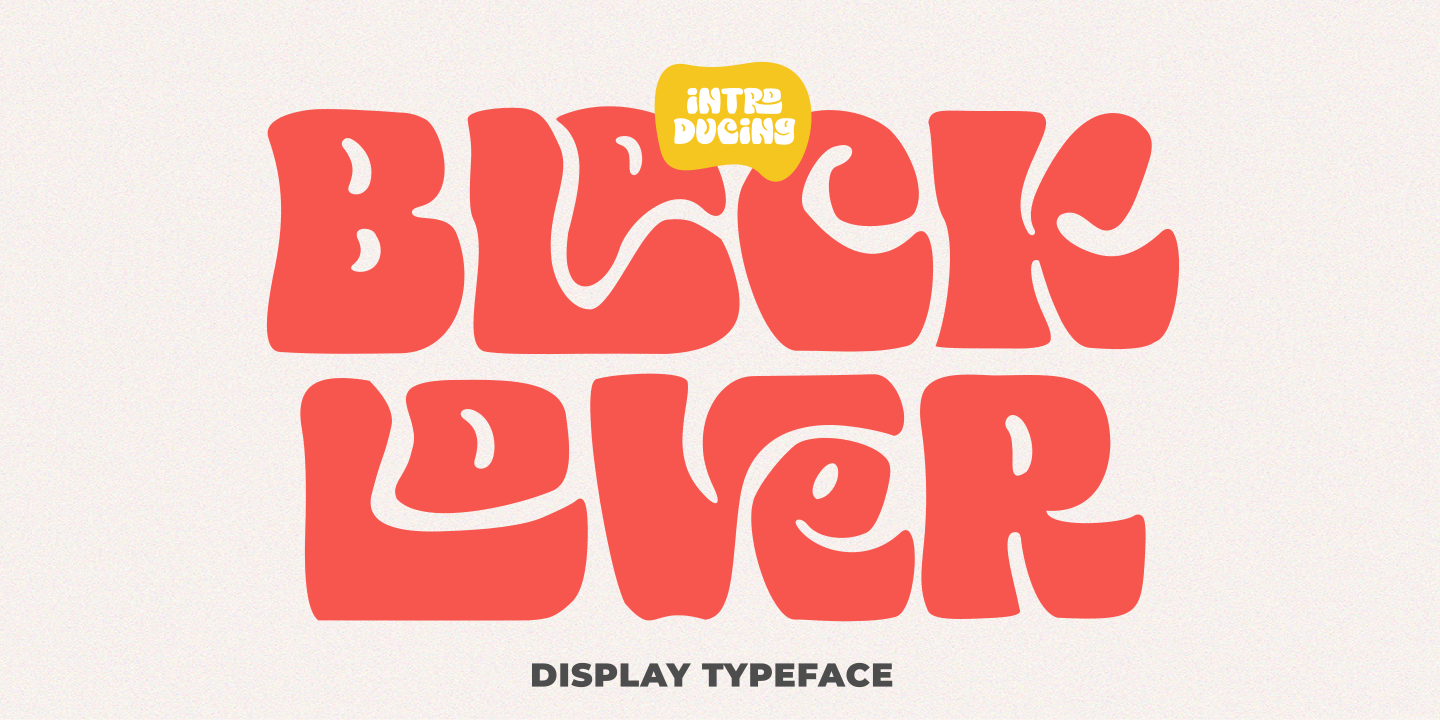
Black Lover Font is perfect for luxury brand logos, high-end fashion magazines, premium product packaging, sophisticated wedding invitations, elegant business cards, upscale restaurant menus, jewelry advertisements, and exclusive event branding. This refined typeface excels in luxury market applications, premium brand identity projects, and any design requiring bold sophistication and timeless elegance.
What makes Black Lover Font exciting is its striking balance of boldness and refinement that commands attention while maintaining sophisticated elegance. The font features dramatically thick letterforms with carefully crafted curves that create powerful visual impact, making it ideal for brands seeking to convey luxury, exclusivity, and premium quality. Its distinctive weight and character ensure memorable brand recognition across all marketing materials.
Black Lover Font family includes multiple weights and styles: Regular, Bold, Extra Bold, Light contrast versions, Italic variations, and stylistic alternates. Each family member maintains the signature dramatic presence while offering flexibility for different design hierarchies, from subtle accent text to commanding headline treatments that dominate the visual landscape.
Whether you're designing luxury packaging or creating high-end advertising campaigns, Black Lover Font Free Download provides the perfect typography solution for premium branding needs. This font transforms ordinary text into powerful visual statements that communicate exclusivity and sophisticated taste. Luxury brands and premium designers choose this typeface for its ability to convey high-end messaging through dramatically bold letterforms that instantly establish prestige and elegance.